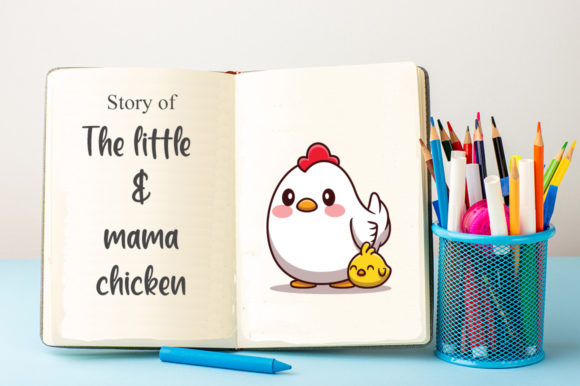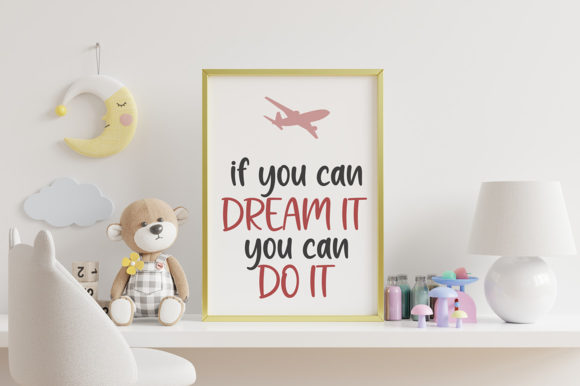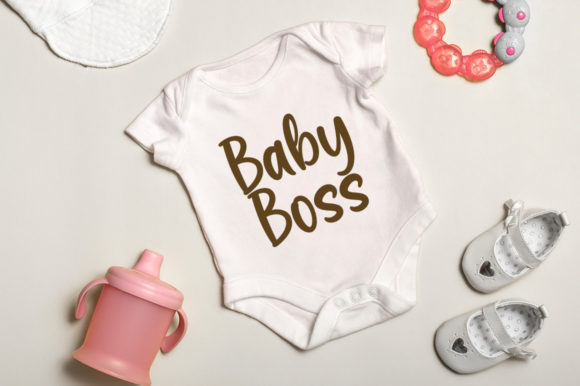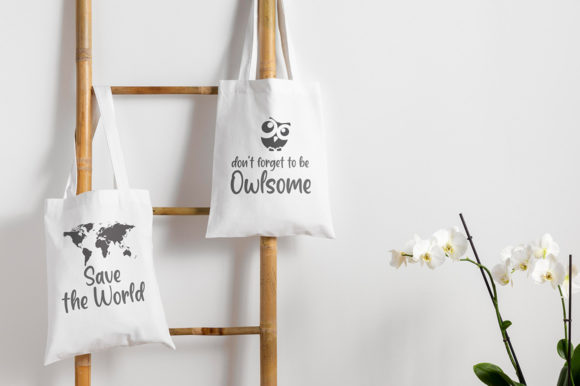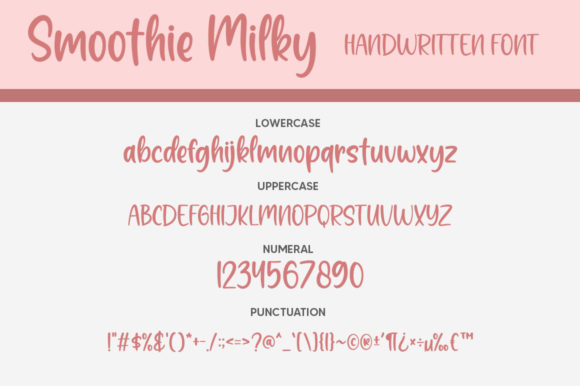
Smoothie Milky Font
About Smoothie Milky Font
Smoothie Milky is a fun and smart-looking handwritten font. It looks ravishing on invitations, thank you cards, quotes, greeting cards, logos, business cards and every other design which needs a customized touch.